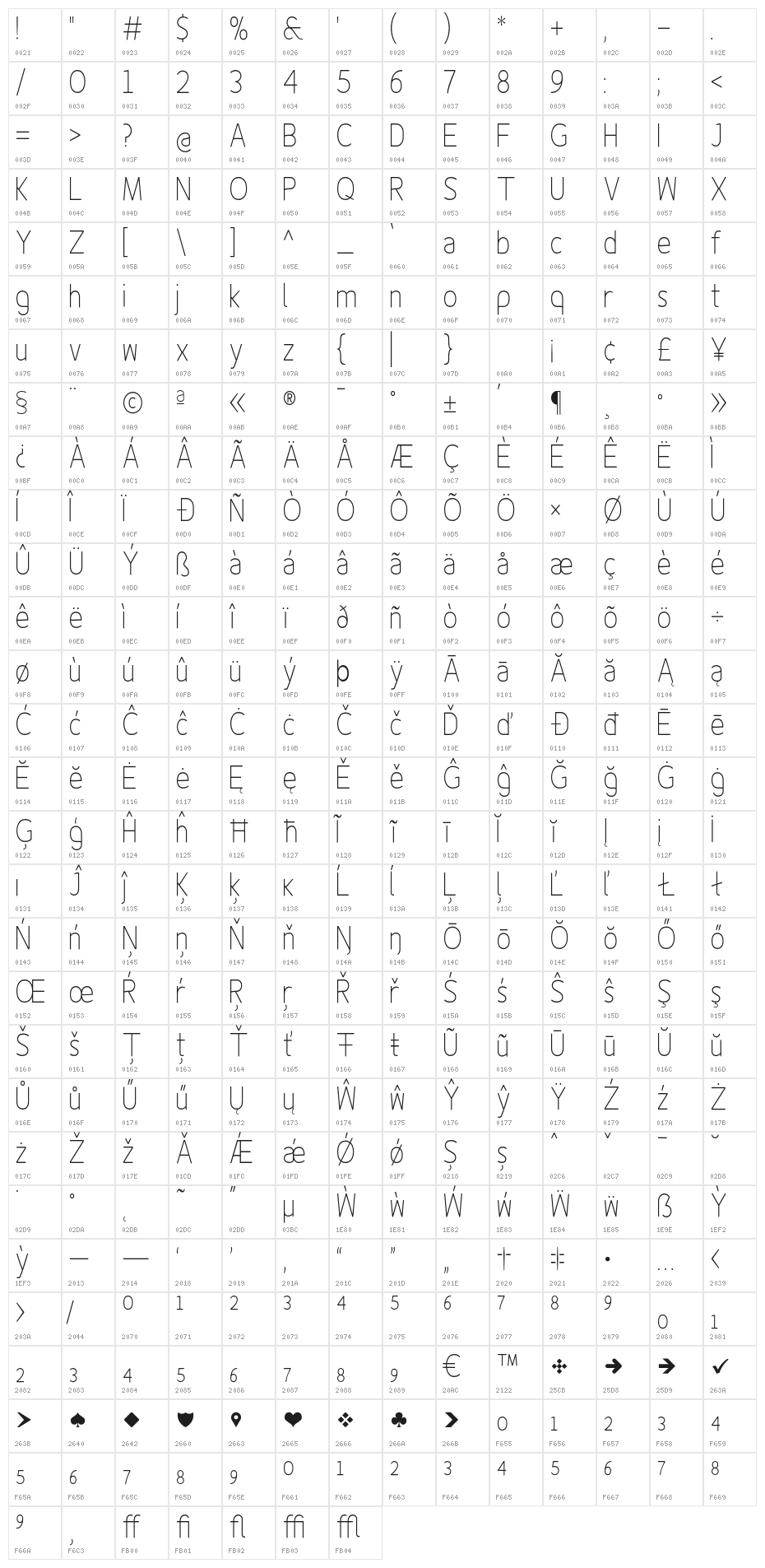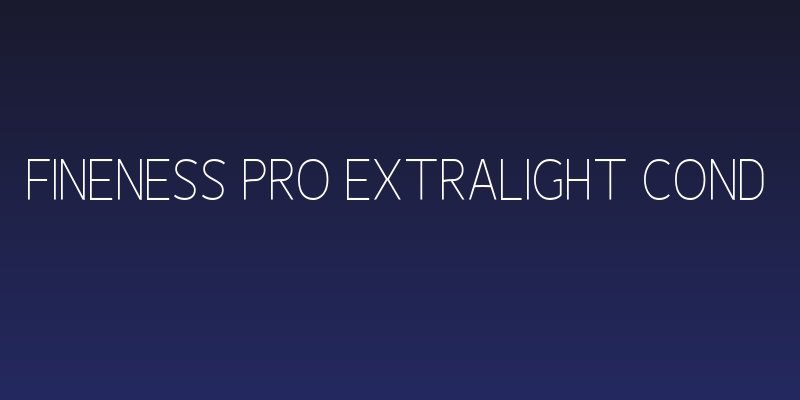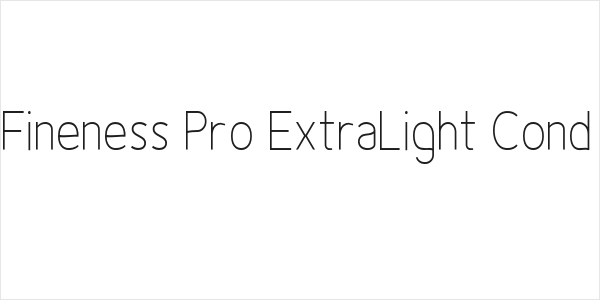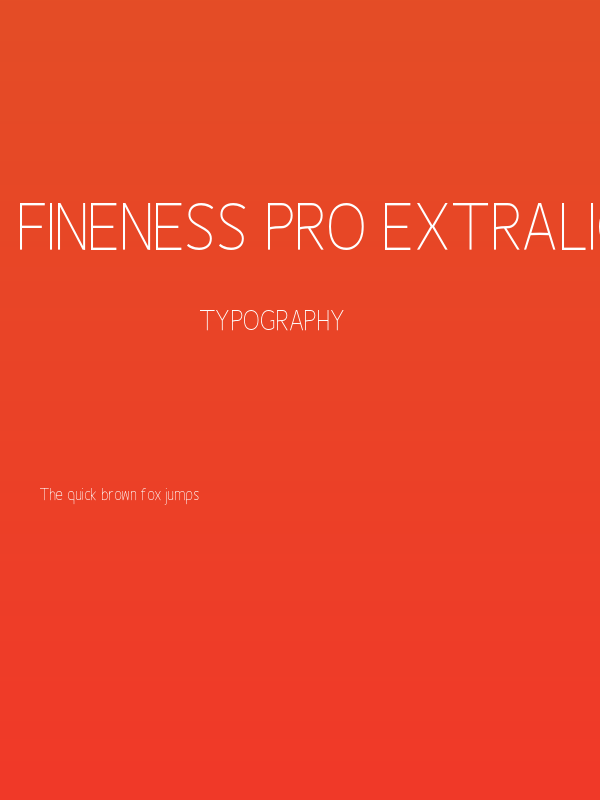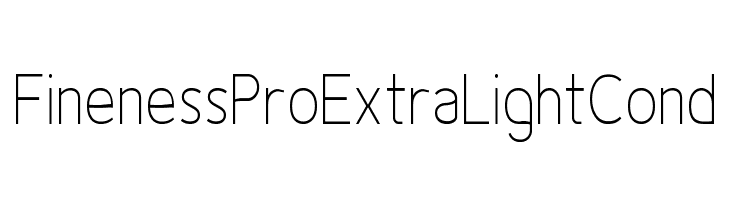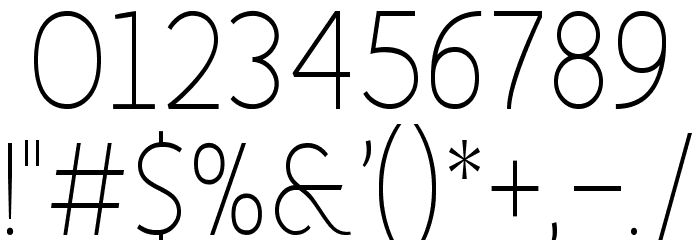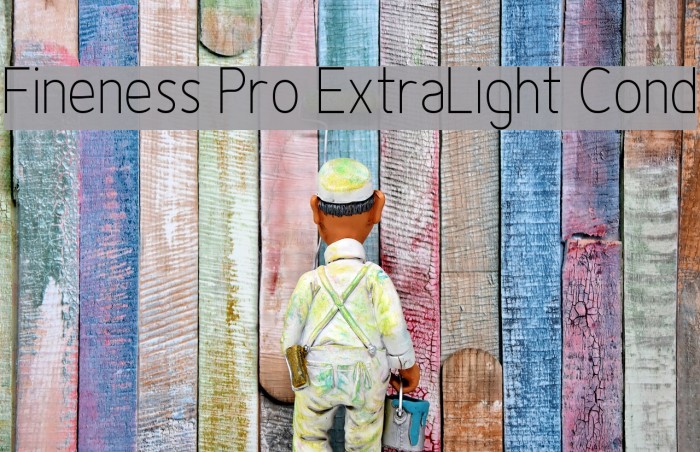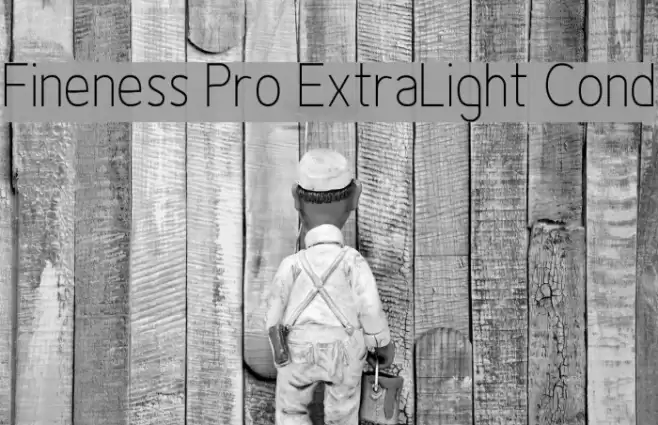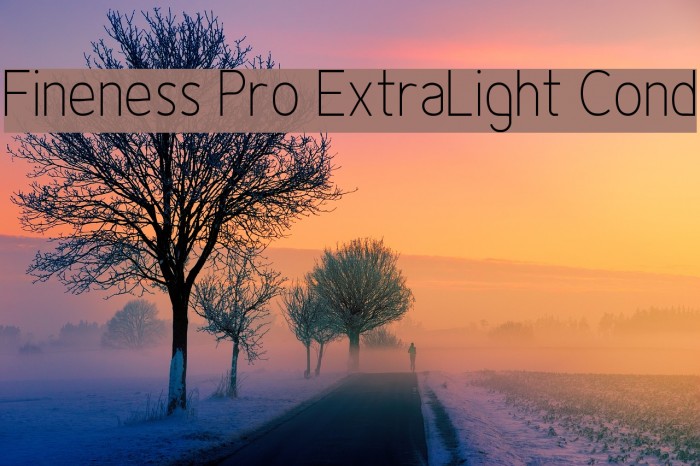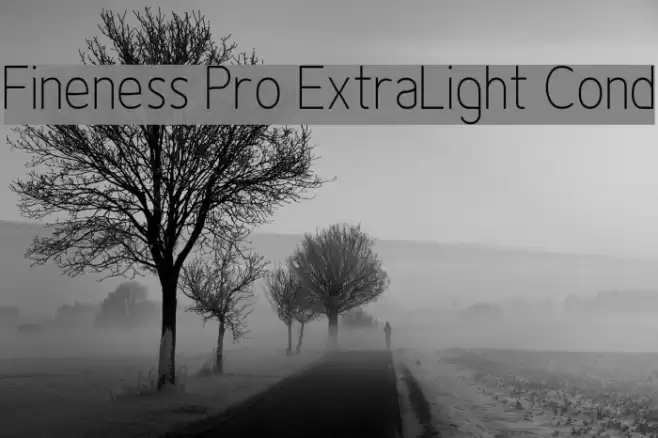
Fineness Pro ExtraLight Cond Font
Fineness Pro ExtraLight Cond Description
This font features a sleek and modern design with an extra light weight, offering a clean and minimalist aesthetic. The characters are uniformly structured with a geometric influence, providing a sense of precision and clarity. The uppercase and lowercase letters maintain a consistent height and width, contributing to a harmonious appearance. The numerals are straightforward and align well with the overall style, ensuring readability. Special characters are elegantly crafted, fitting seamlessly with the rest of the typeface. The condensed width of the font allows for efficient use of space, making it ideal for projects where space is a premium.
| Use Case | Headlines, Body text, Logos |
| Proposed Projects | Ideal for modern branding, minimalist web design, editorial layouts, and corporate materials. |